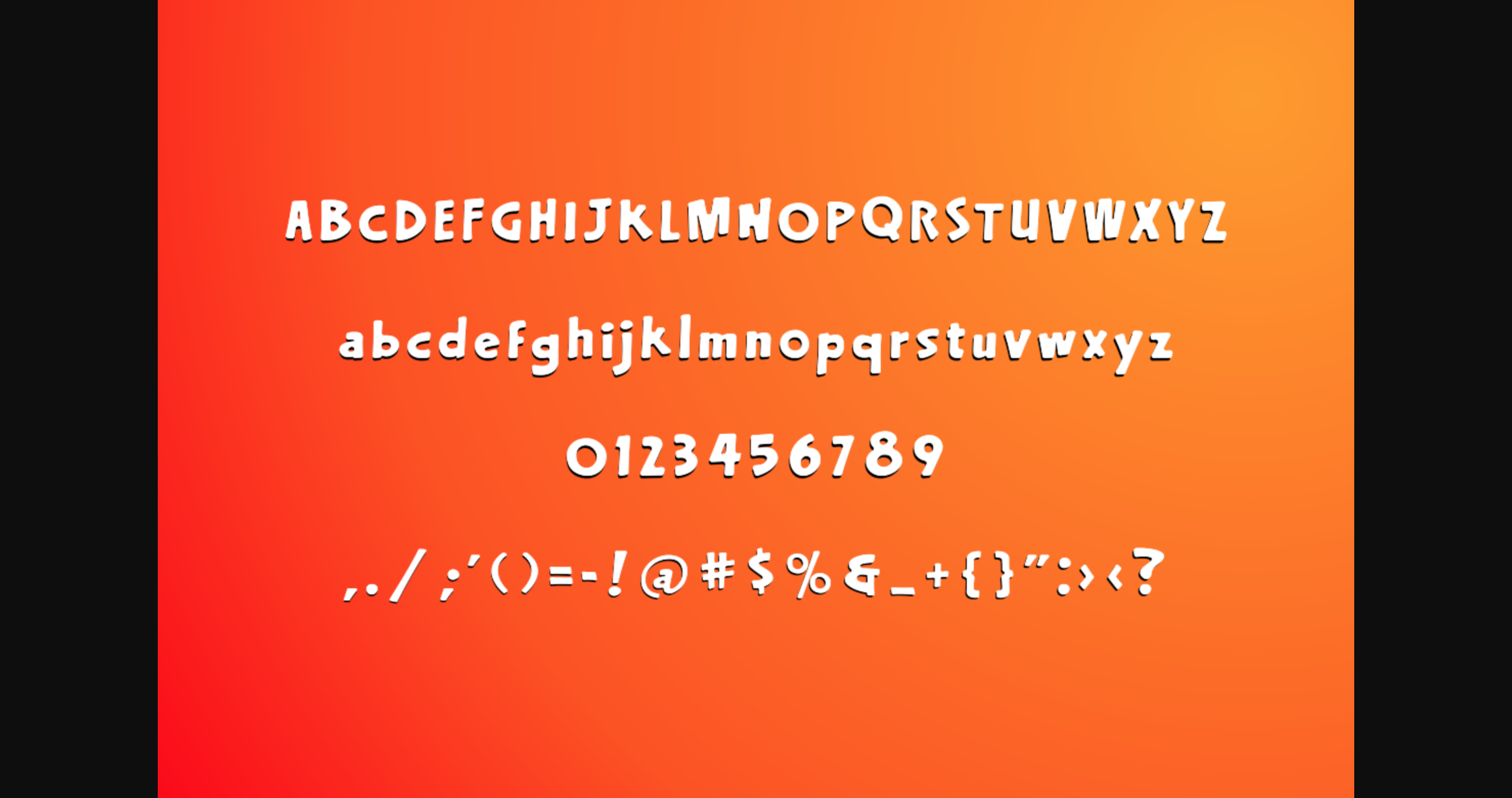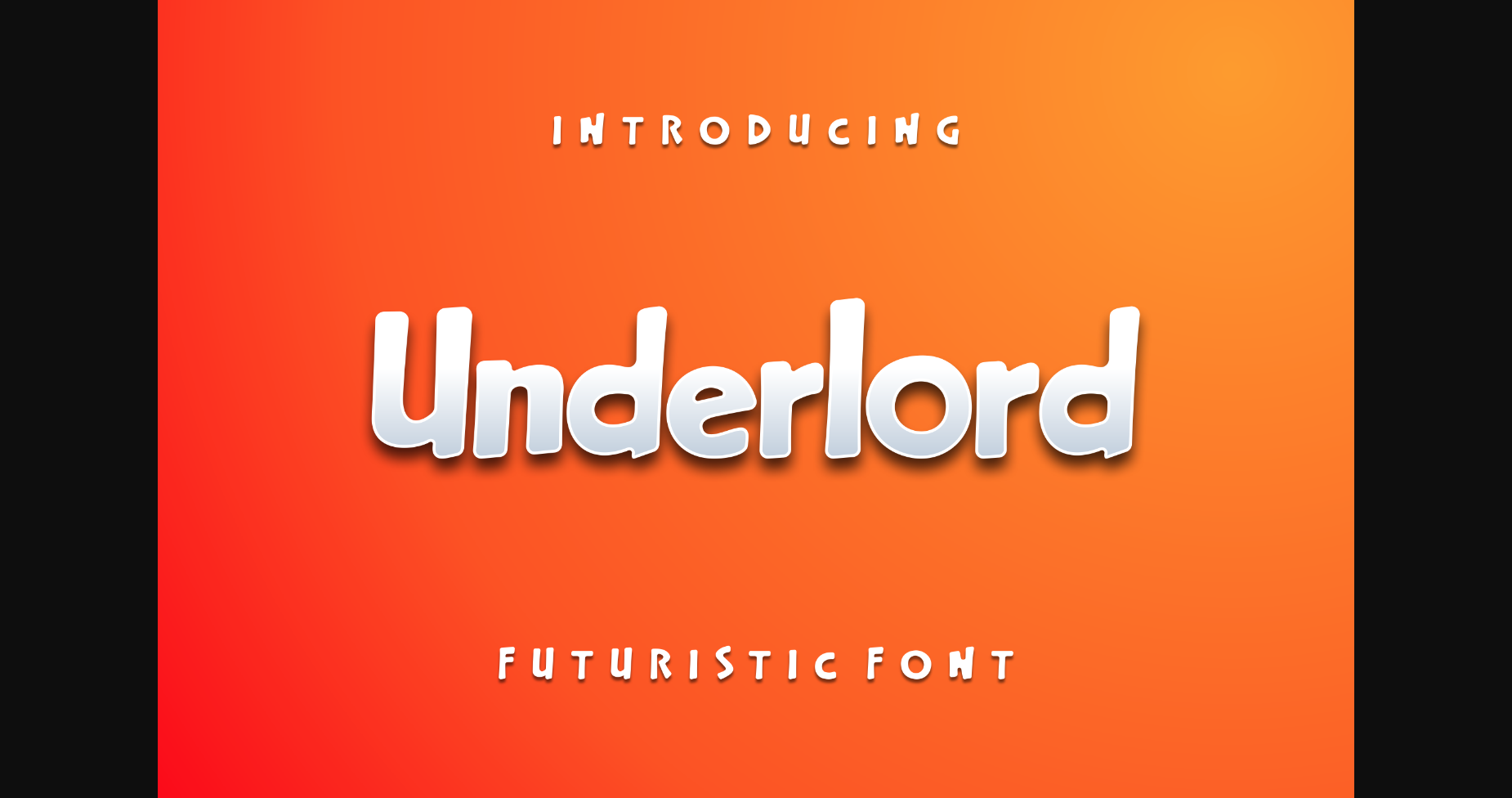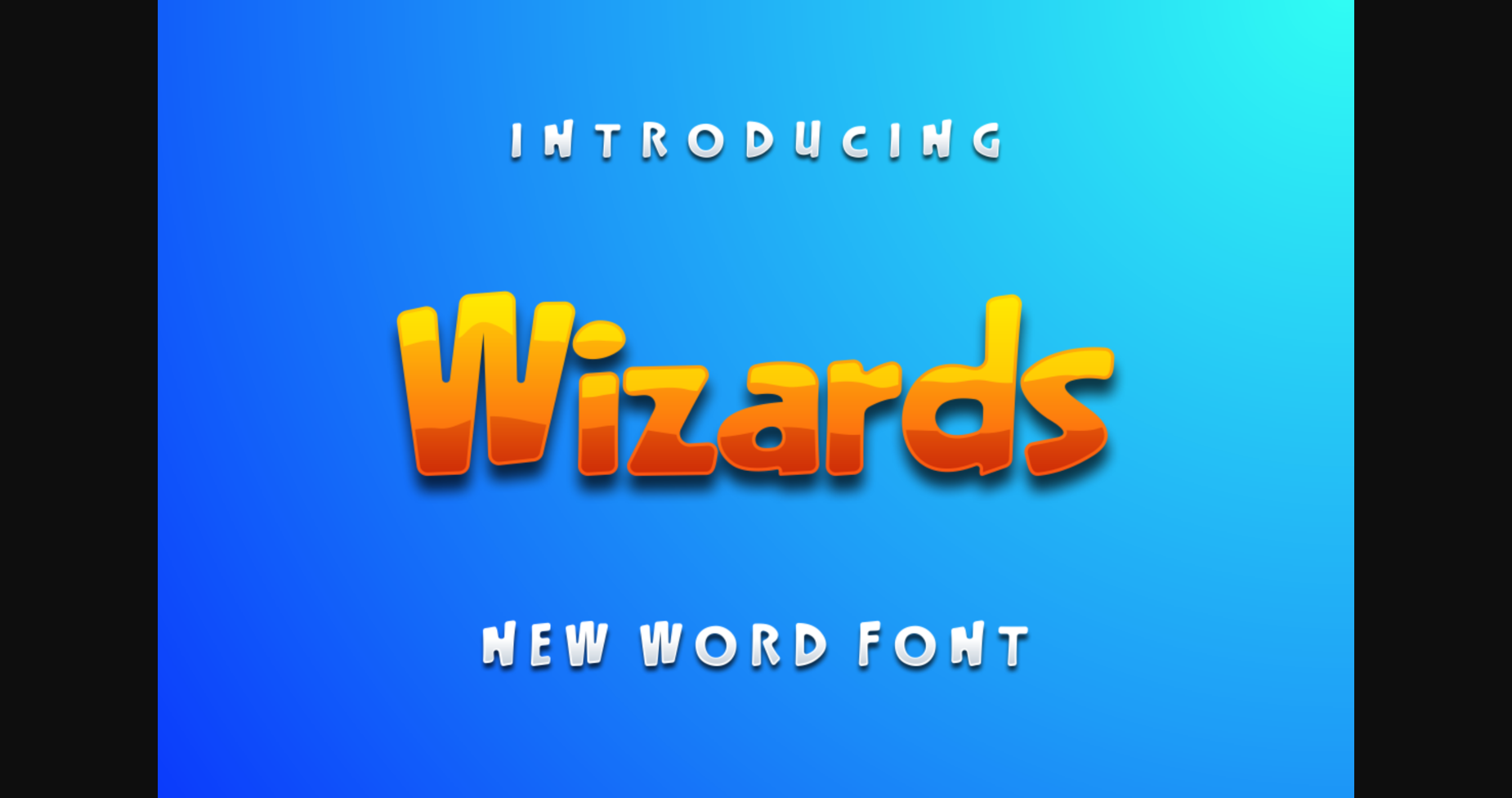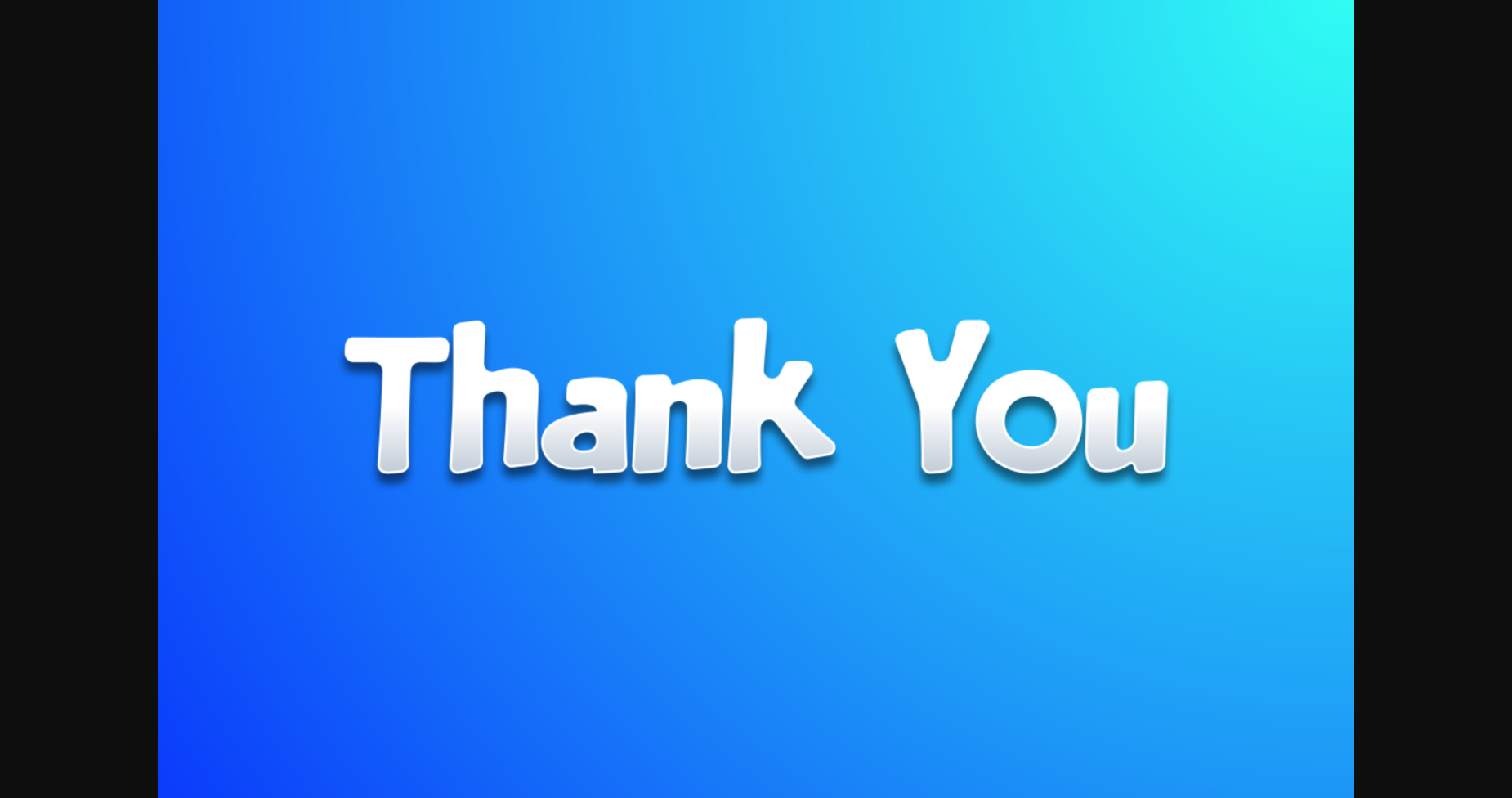
About Underlord Font
Introducing our new product **Underlord Font** – Modern Font
**Underlord Font** – Modern Font is a bold and authentic display font. The font is suitable for any branding project like logo, t-shirt printing, e-sport, and many more. outstanding in a wide range of contexts.
* Uppercase
* Lowercase
**Underlord Font** – Modern Font is a bold and authentic display font. The font is suitable for any branding project like logo, t-shirt printing, e-sport, and many more. outstanding in a wide range of contexts.
* Uppercase
* Lowercase